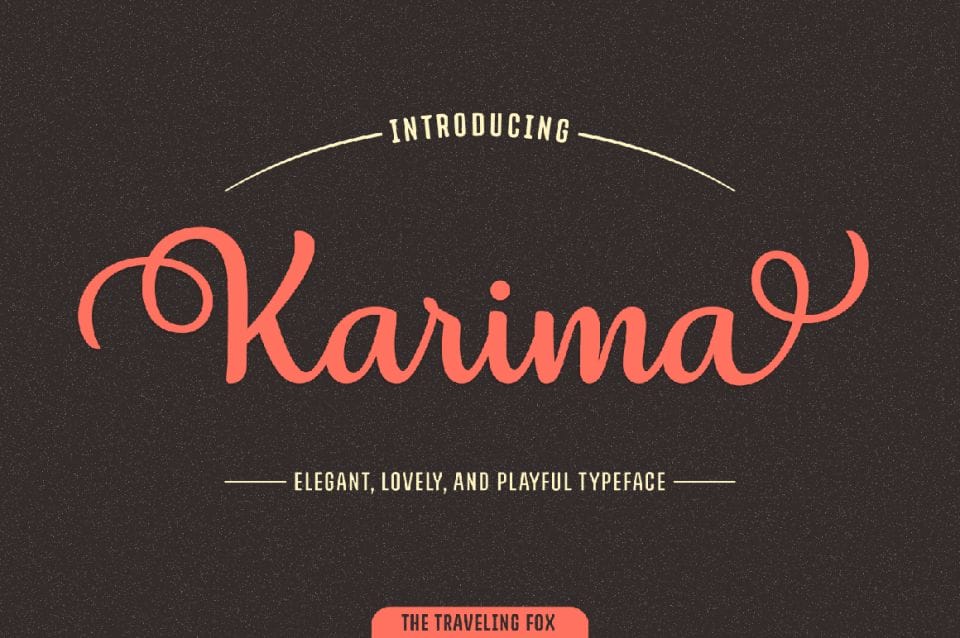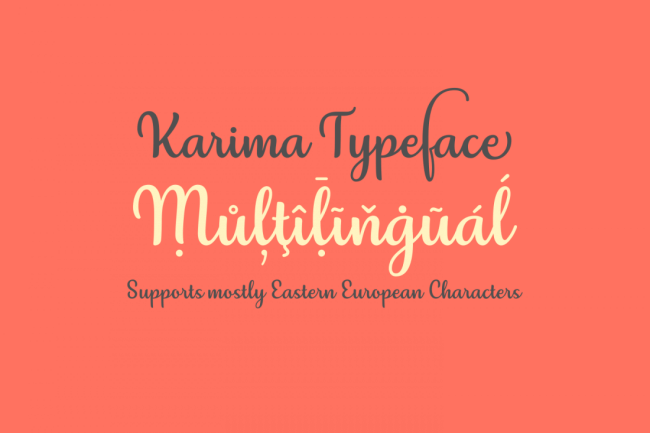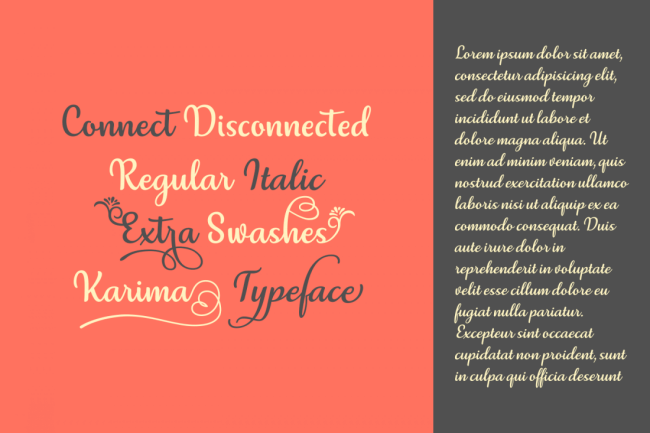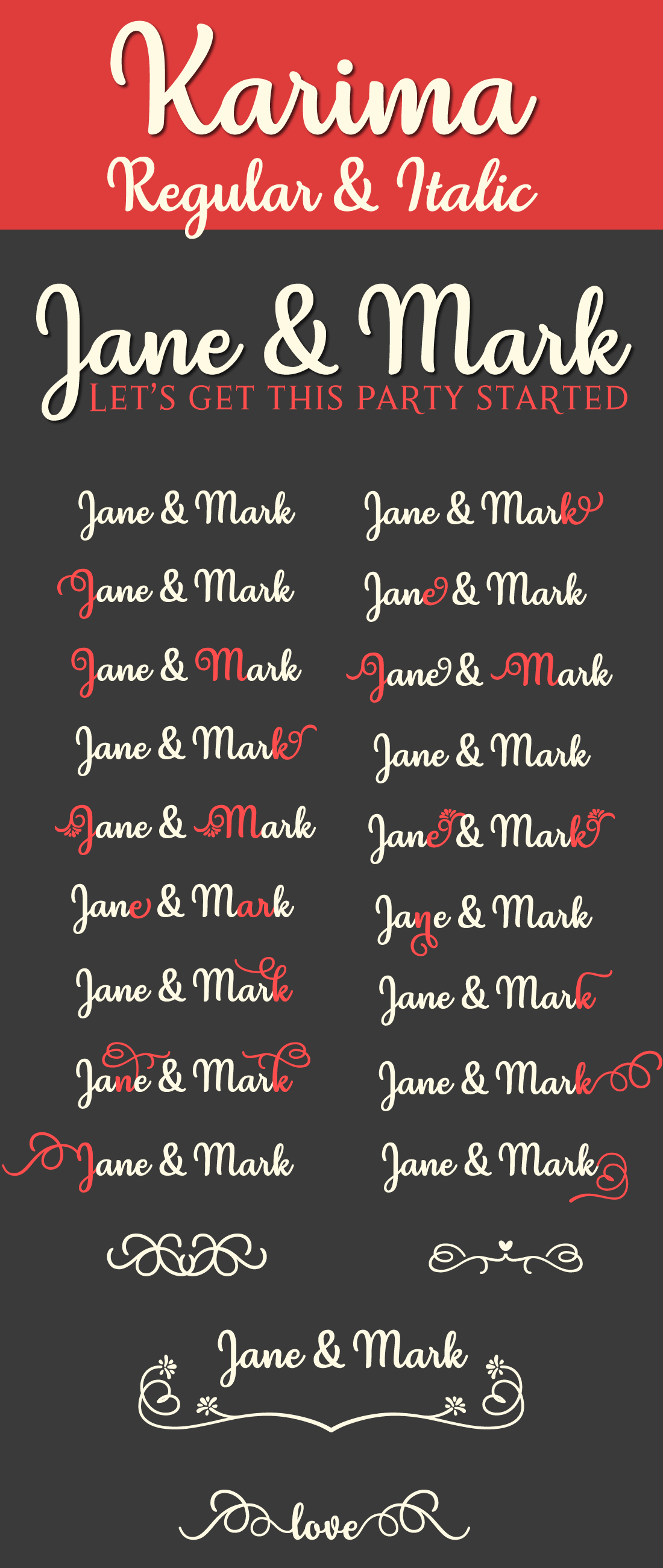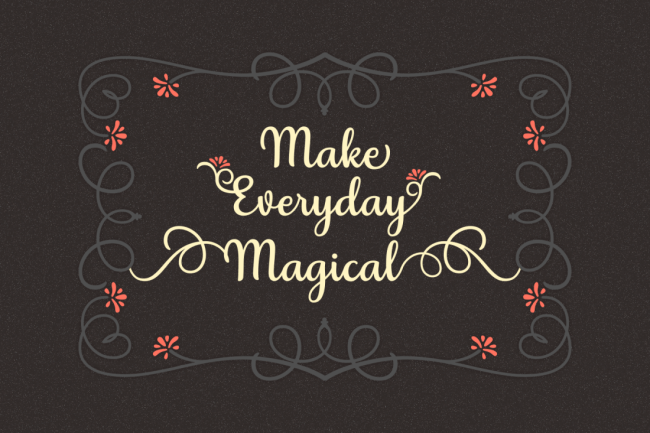
If you want to impress your typeface toolbox (and your clients, of course!), grab hold of this discounted deal today! The stunning Karima Script is as elegant as it is curvy. Flowing with smooth, legible letters, Karmia features a regular and italics version, alternates, swashes and ligatures and more, all adding up to more than 1,000 unique glyphs. That’s some serious flexibility in a font.
- Highly legible, curvy professional font.
- 1000+ glyphs – mix and match to make the perfect combination.
- Two styles – regular and italics versions.
- Plenty of extras – swashes, ligatures, alternates, ornaments, patterns, borders.
- Great choice for elegant print projects such as logos, invitations, note cards, totes, pillows, quotes, signs and more.